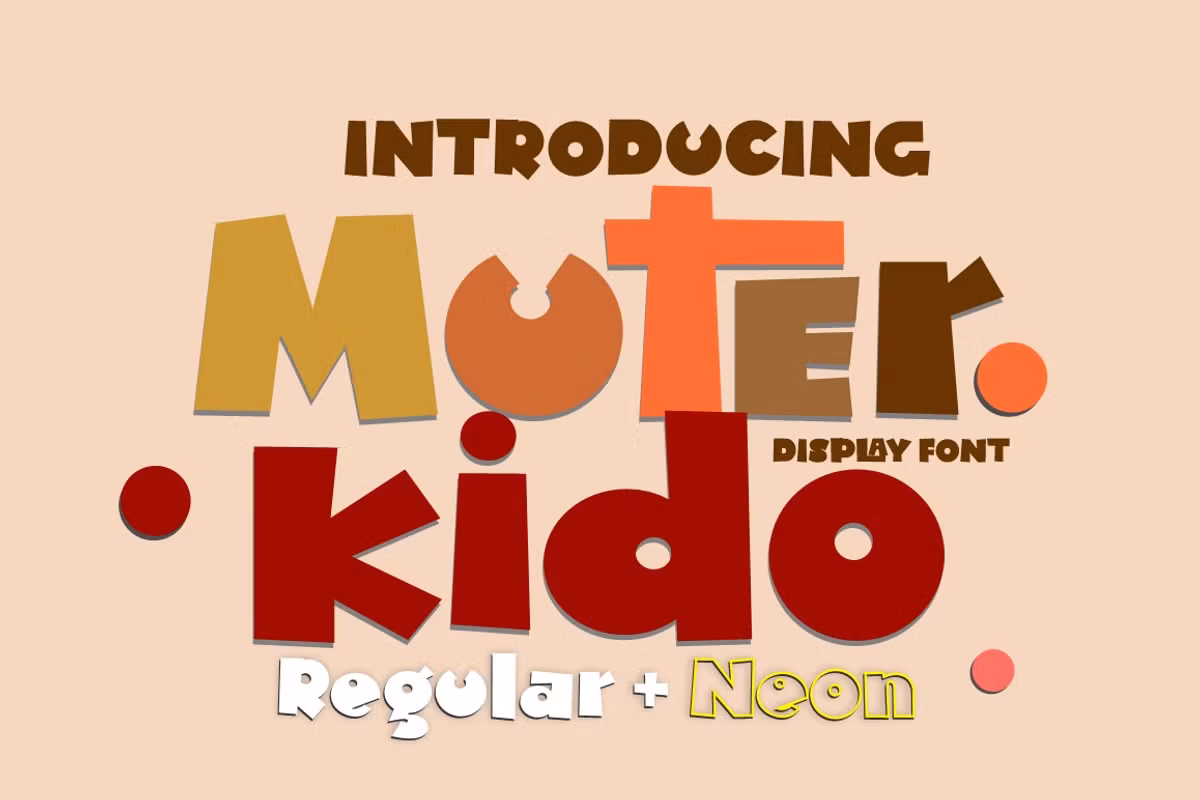
Please note that you must purchase this font for commercial use. You can download Muter Kido – Display Cute Font for free, strictly for personal testing purposes only. Muter Kido is a playful, bubbly display font designed to bring joy and whimsy to your creative projects. With its rounded shapes, quirky design, and childlike charm, Muter Kido Font Free Download is perfect for children’s books, fun branding, playful logos, social media posts, birthday invitations, and any design that requires a cheerful, friendly vibe.
The font captures the spirit of youthful fun, making it ideal for projects aimed at a younger audience or those that want to evoke happiness and creativity. It includes uppercase and lowercase letters, numerals, punctuation, and multilingual support for global use.
Whether you’re designing for a kids’ brand, crafting playful merchandise, or creating joyful designs, Muter Kido adds charm and excitement to your typography.